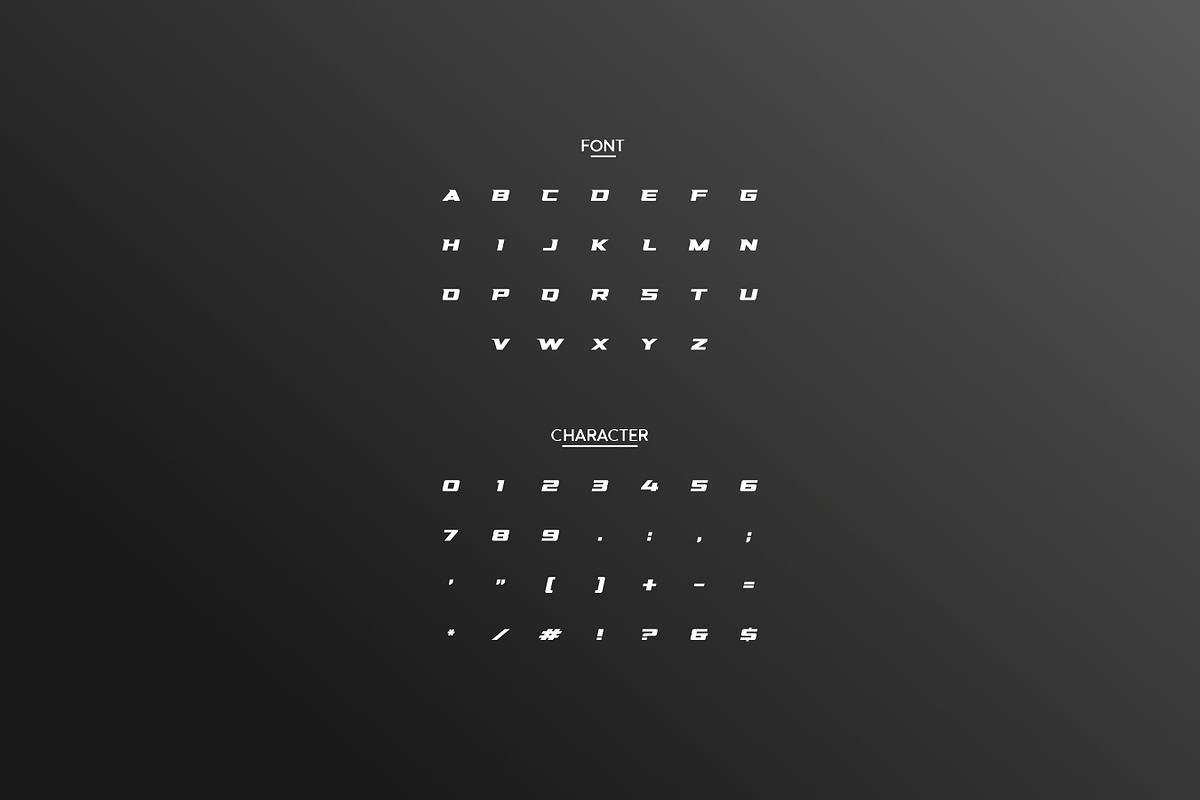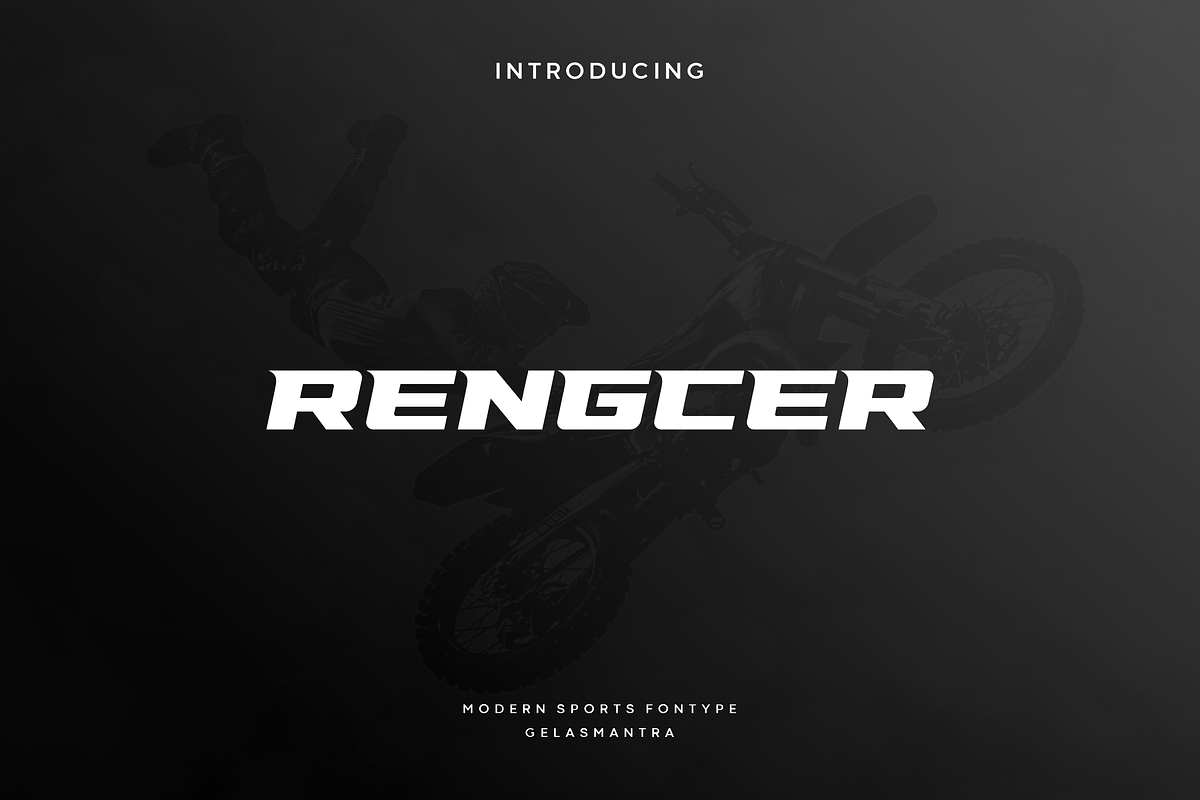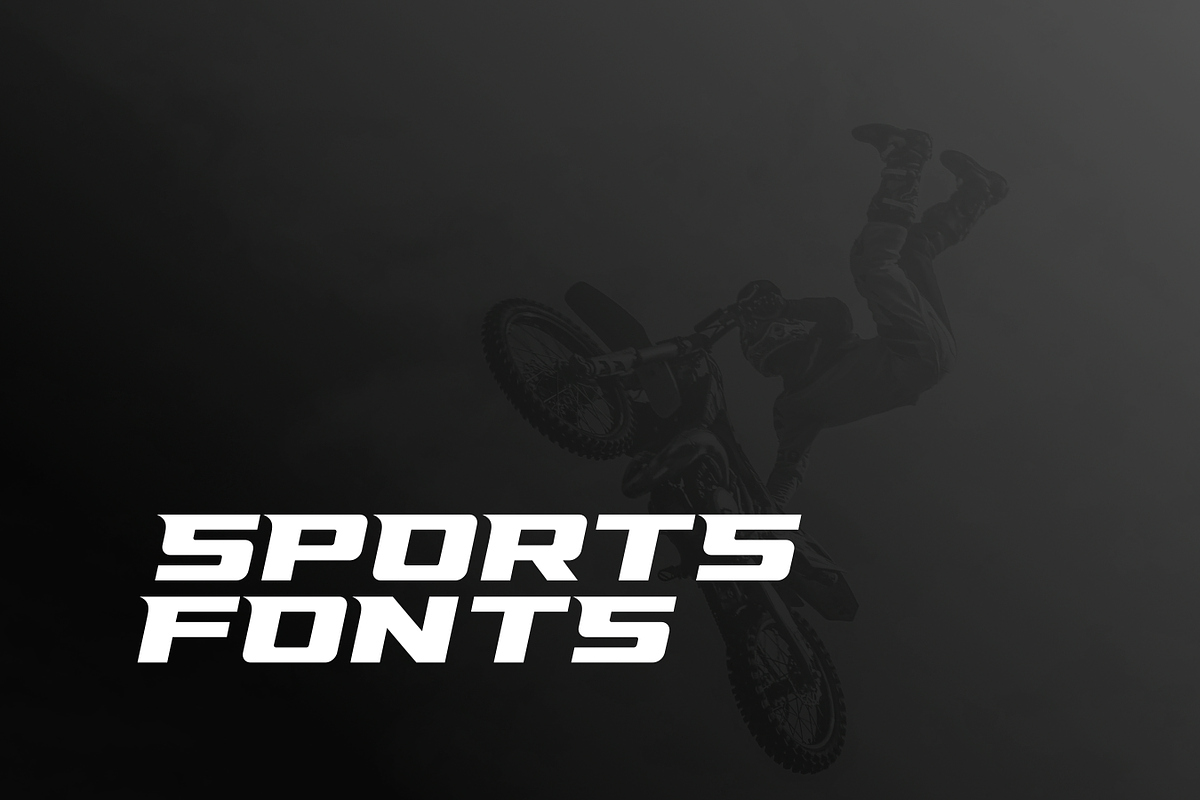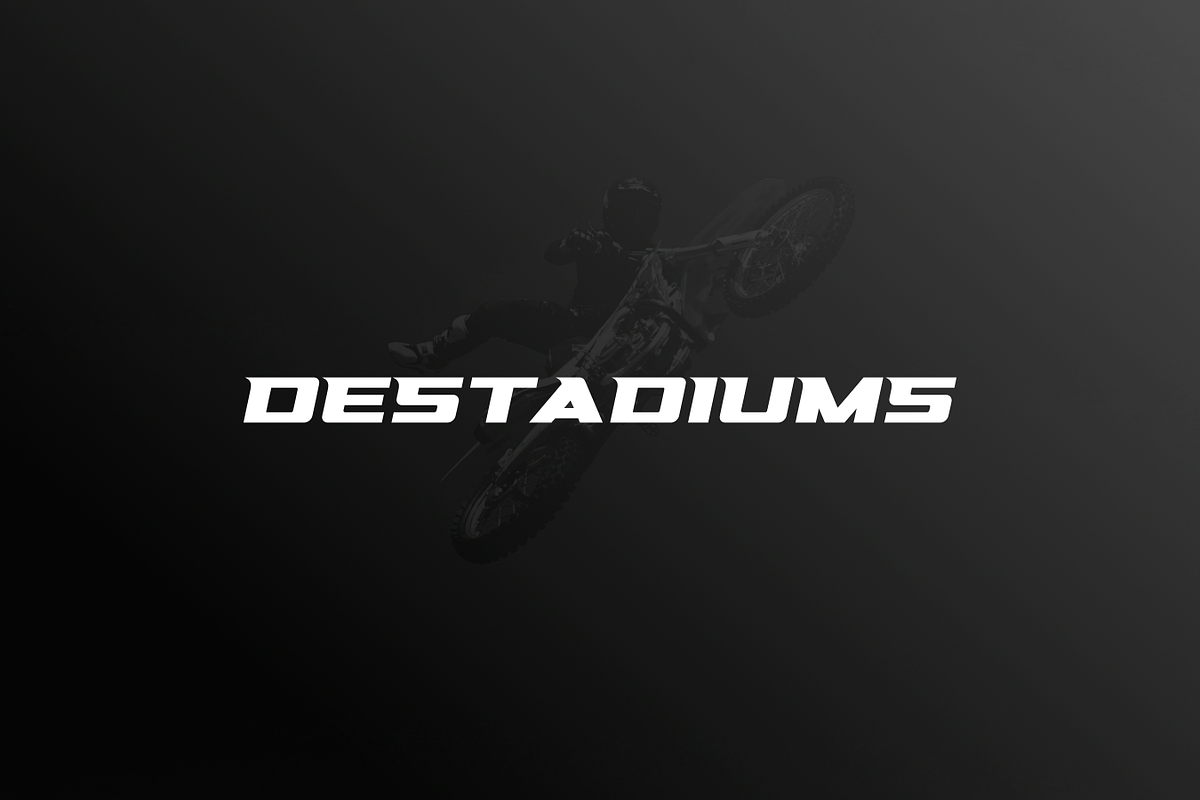
Rengcer
Rengcer an awesome sports font with wide italic fonts, modern cutouts, and dynamic slant. Ideal for fast car racing sports titles, running matches, cycling, automotive game logos and monograms or other modern dynamic text. Rengcer compare favorably with legibility and size, creating the effect of power and speed.